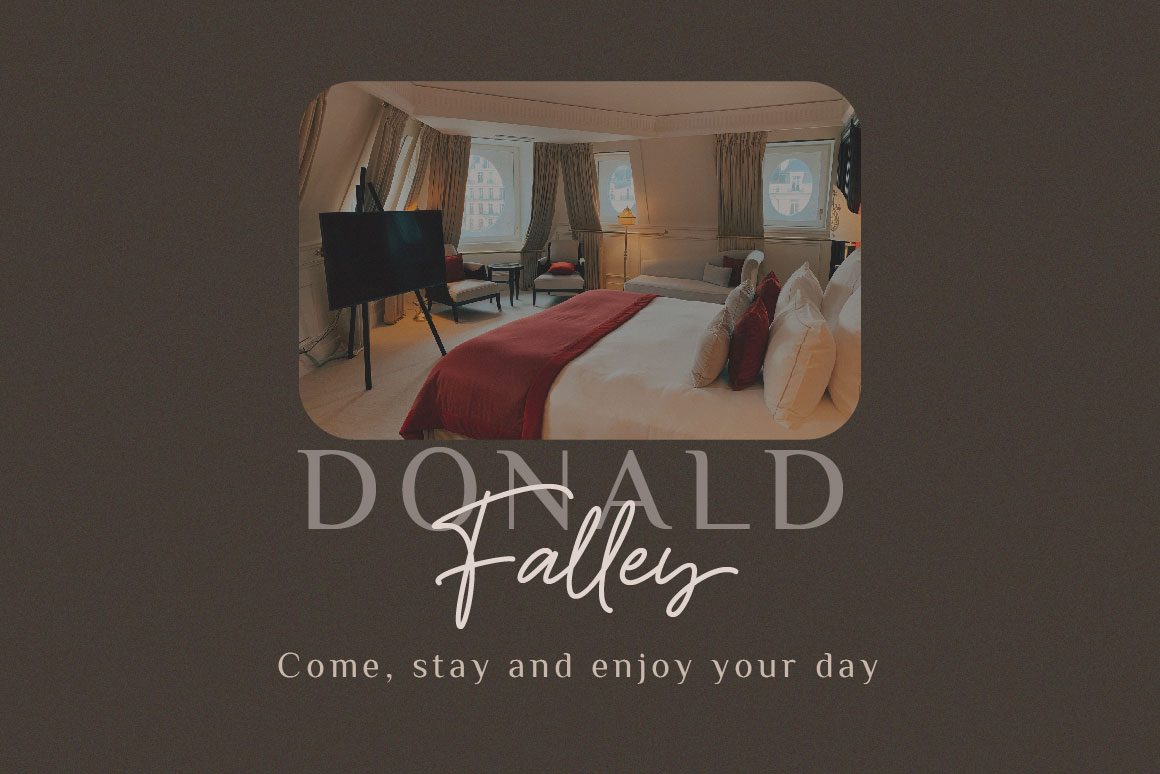
Helliya Signature Font
Helliya Signature Script Font
This is a lovely and timeless handwritten font. It is the best choice for creating eye catching logos, branding and quotes. Every letter has a unique and beautiful touch, which will make your design come alive!